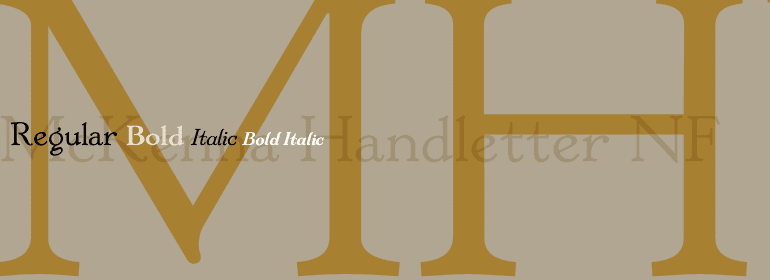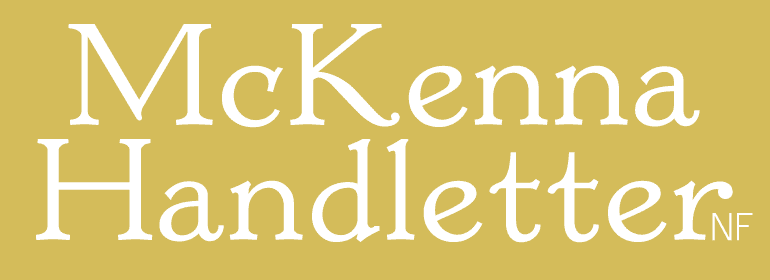
McKenna Handletter Family, NF (4 fonts)
Both versions of this font contain the complete Latin A Extended character set, as well as extended ligatures and fractions.
Nick's Fonts is a modest little foundry dedicated to the preservation of our rich typographic heritage. Most of the foundry's designs are based on authentic historical sources, gleaned from the massive collections of the Library of Congress. If you're looking for a font that captures the essence of the Wild West, the Gay Nineties or the Jazz Age, look here first: if it's not in the catalog, it will be soon.
A graphic designer with over thirty years of experience in print, A/V, broadcast television and the Web, Nick Curtis has been passionately interested in typography ever since he discovered a type specimen book in his early teens. He credits Push Pin Studios and the Haight-Ashbury Art Nouveau revival of the 60s as other major influences.